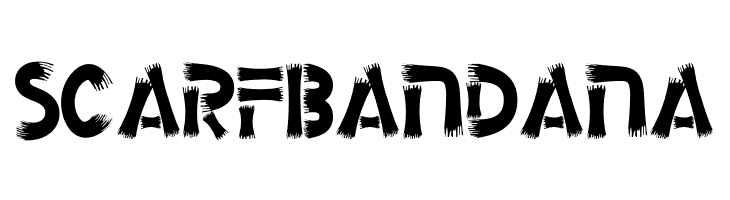
A bold, playful font with a spooky, hand-drawn style.
( Fonts by PutraCetol Studio )
A bold, brushstroke-style font with dynamic and artistic flair.
( Fonts by Masa Aska Sanurumi )
A horror-themed font with dripping, eerie characters.
( Fonts by Md Shohail Bhuian )
A bold, playful font with thick, uneven strokes and a hand-drawn feel.
( Fonts by Misti's Fonts )
A bold, irregular font with a spooky, hand-drawn appearance.
( Fonts by Masa Aska Sanurumi )
An intricate, gothic-style font with dramatic flourishes and sharp edges.
A bold, expressive handwritten font with dynamic strokes and a playful yet assertive style.
( Fonts by Ditatype )
A bold, distressed font with a vintage, rugged appearance.
( Fonts by Letterena Studios )
Casual handwritten font with playful style.